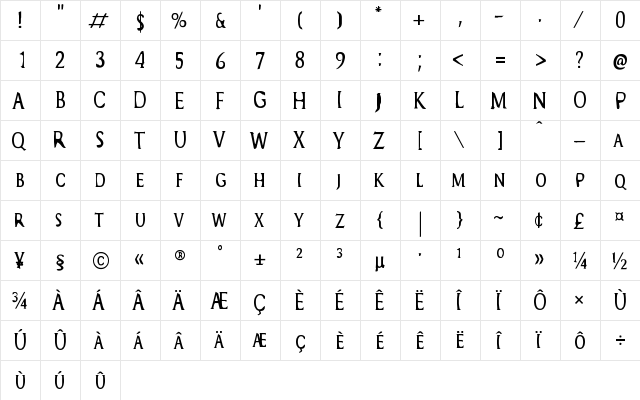
Basic Map Regular
| Foundry | Rέi Godefroid |
| Designer | Rέi Godefroid |
Design Context for Basic Map Typeface
Basic Map is a composed and adaptable typeface that performs quietly and consistently across a wide range of design contexts.